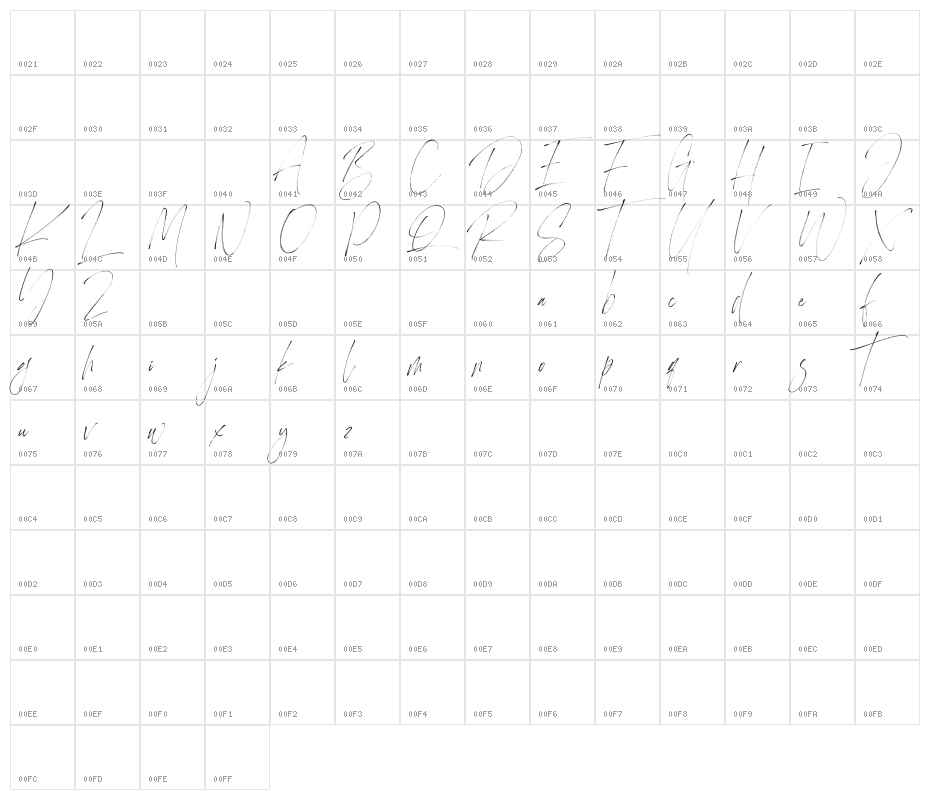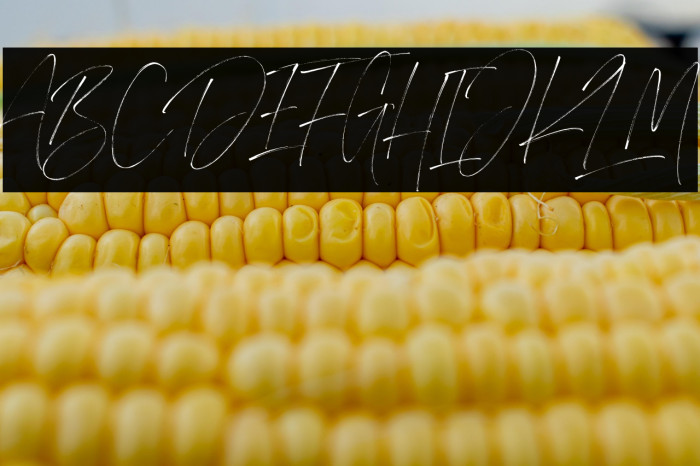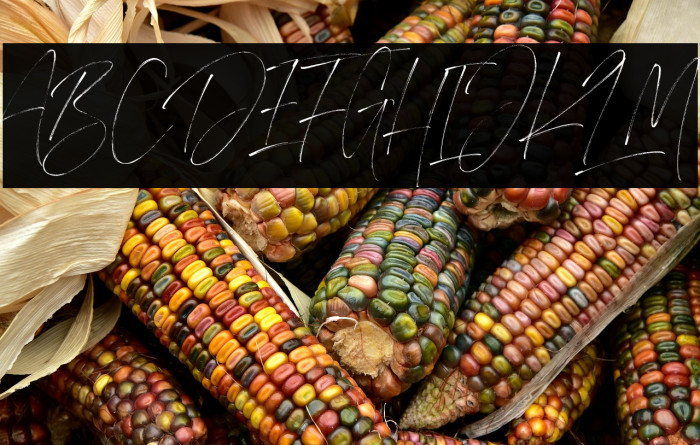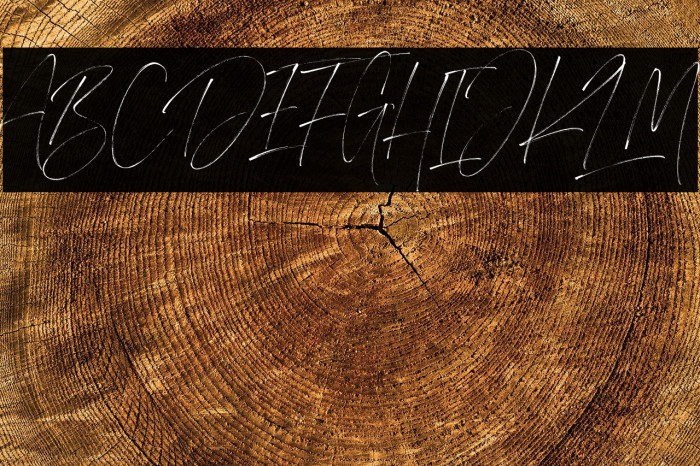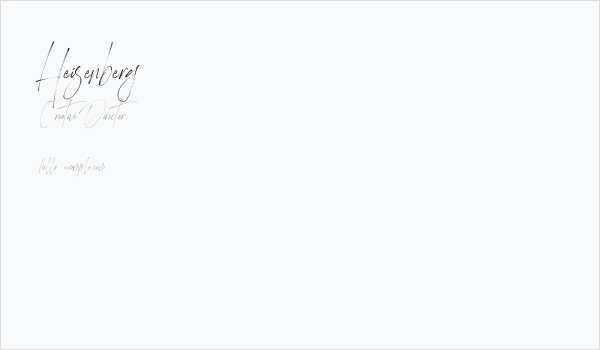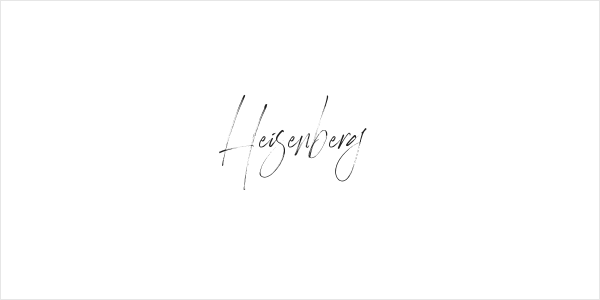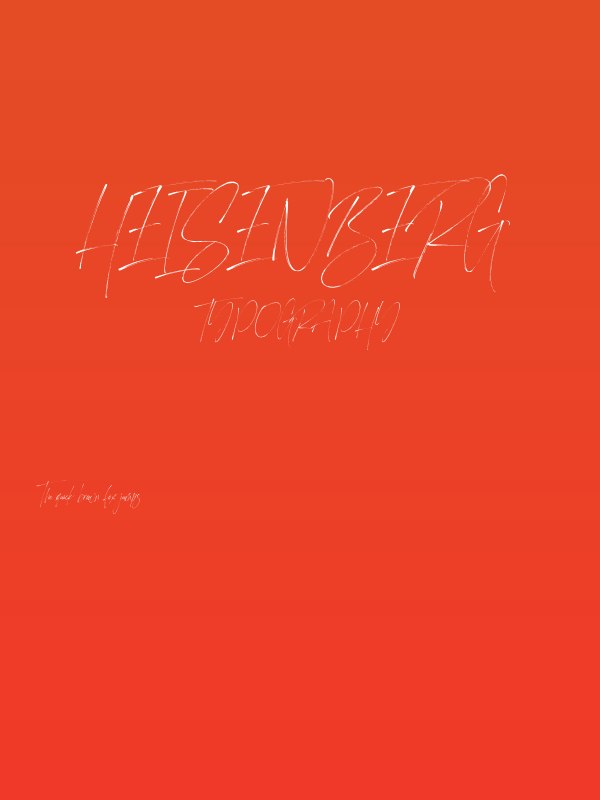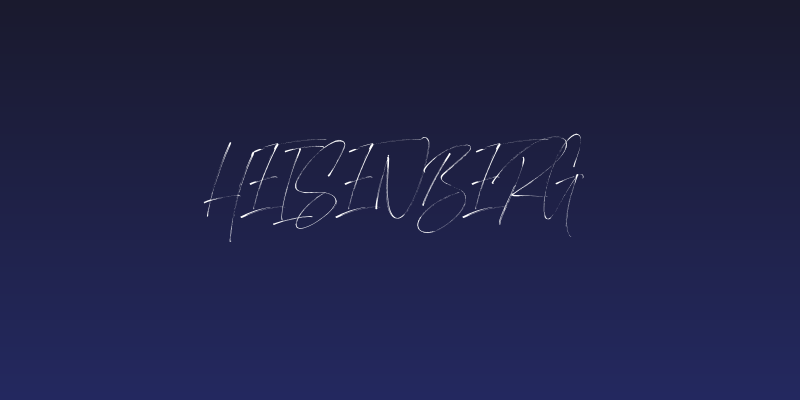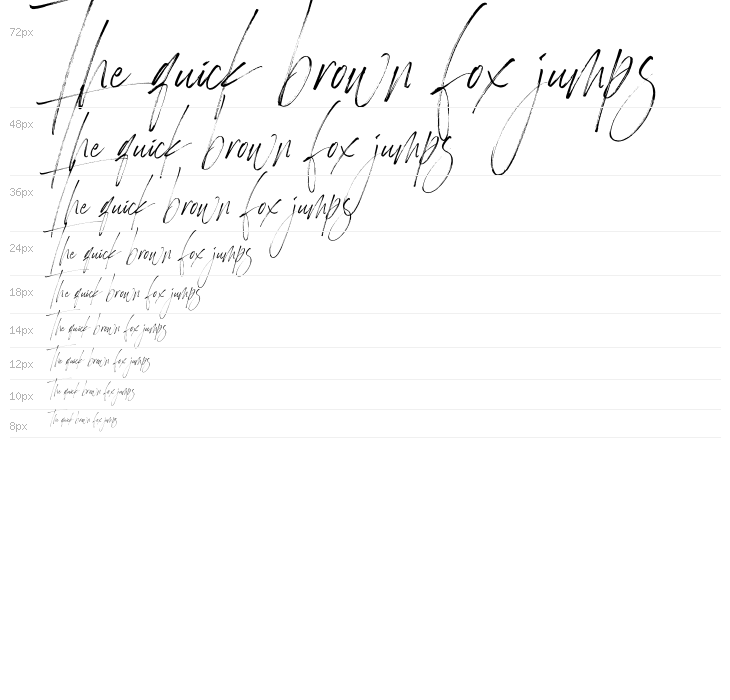
Heisenberg Font
Heisenberg Description
This font exudes a dynamic and expressive handwritten style, characterized by its fluid and spontaneous strokes. The letters are crafted with a sense of motion, giving an impression of speed and energy. The uppercase and lowercase letters maintain a consistent style, with elongated ascenders and descenders that add to its artistic flair. The numbers and special characters follow the same lively design, ensuring a cohesive look across all text elements. This font is perfect for projects that require a personal touch or an artistic edge.
| Overall Style | Artistic, Expressive |
| Use Case | Logos, Artistic posters, Invitations |
| Proposed Projects | Ideal for creative projects such as invitations, greeting cards, artistic posters, and branding that requires a personal and energetic touch. |